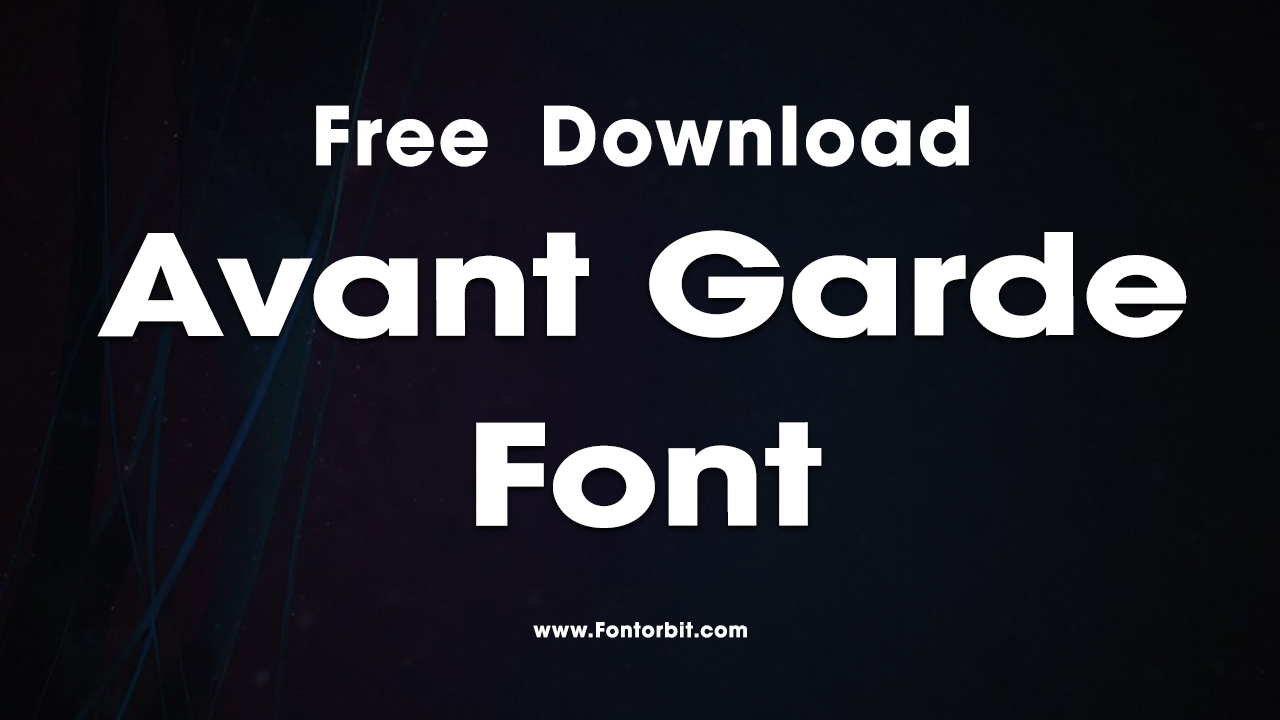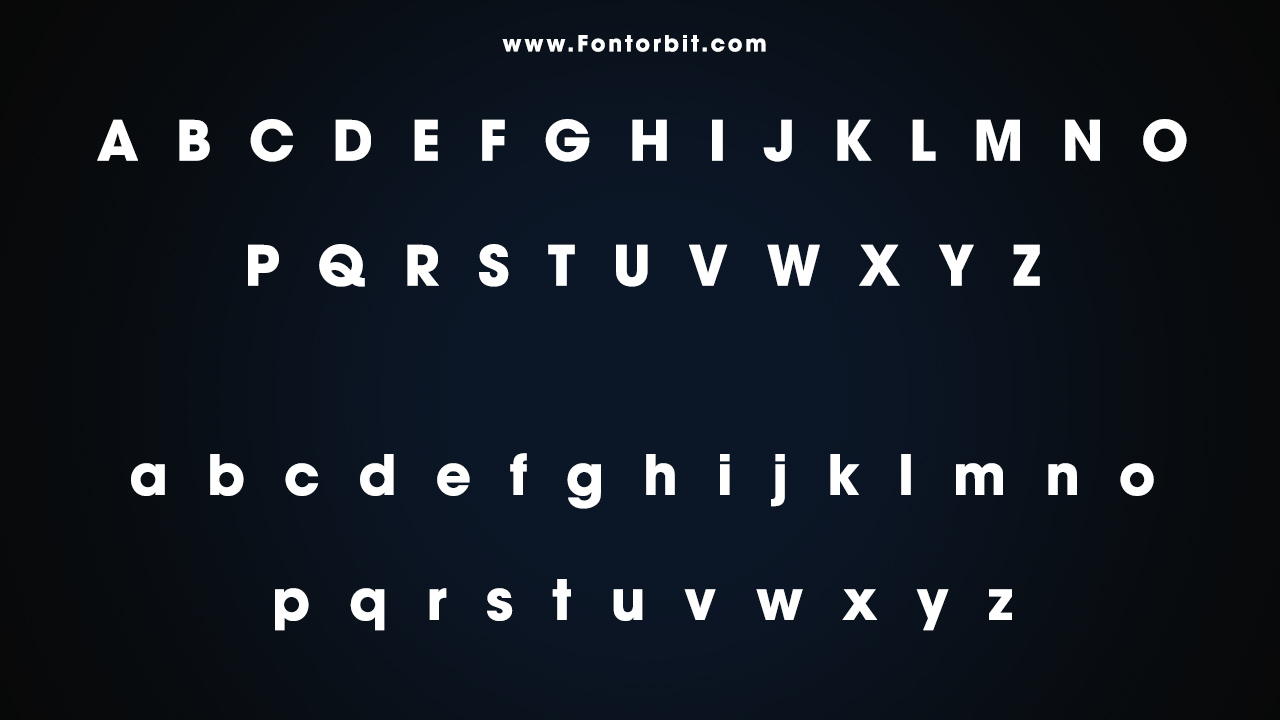
The Avant Garde Font, designed by Herb Lubalin and Tom Carnase, embodies a bold, modern aesthetic with its geometric sans-serif design.
Originally crafted for the Avant Garde magazine logo in 1970, this typeface is known for its striking visual appeal and versatility. Ideal for a variety of design applications, Avant Garde Font brings a contemporary and impactful look to any project.
The Avant Garde Font Family
- Magazine Covers
- Advertising Campaigns
- Branding and Identity Projects
It’s an excellent choice for creating standout headlines, distinctive logos, and eye-catching posters. This Font is perfect for projects that require a modern and striking look. Its geometric and clean lines make it ideal for impactful headlines, dynamic logos, and memorable branding efforts.
1.What Is The Avant Garde Font?
The Avant Garde Font is a geometric sans-serif typeface designed by Herb Lubalin and Tom Carnase, known for its bold and modern design.
2.What Fonts Are Similar To Avant Garde?
Fonts similar to Avant Garde include Futura, Avenir, Eurostile, and Gotham, which offer geometric and clean styles.
3.What Are The Key Features Of The Avant Garde Font?
The font features bold, geometric letterforms and a modern design, ideal for creating striking headlines, distinctive logos, and impactful branding.
4.How To Use Avant Garde Font In Branding?
Use it to craft memorable logos, impactful headlines, and modern advertising materials that capture attention.
5.What Are The Alternatives To The Avant Garde Font?
Similar fonts include Futura, Avenir, and Gotham, which offer contemporary and geometric styles suitable for modern design needs.